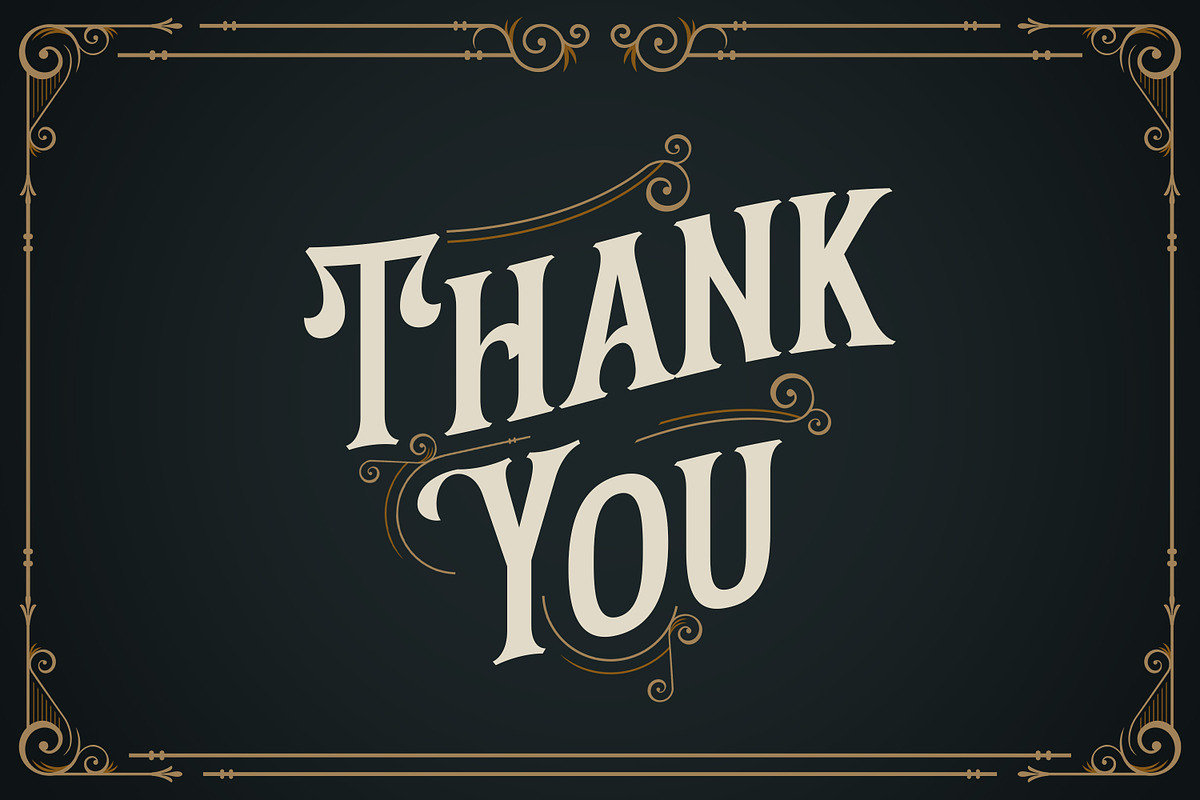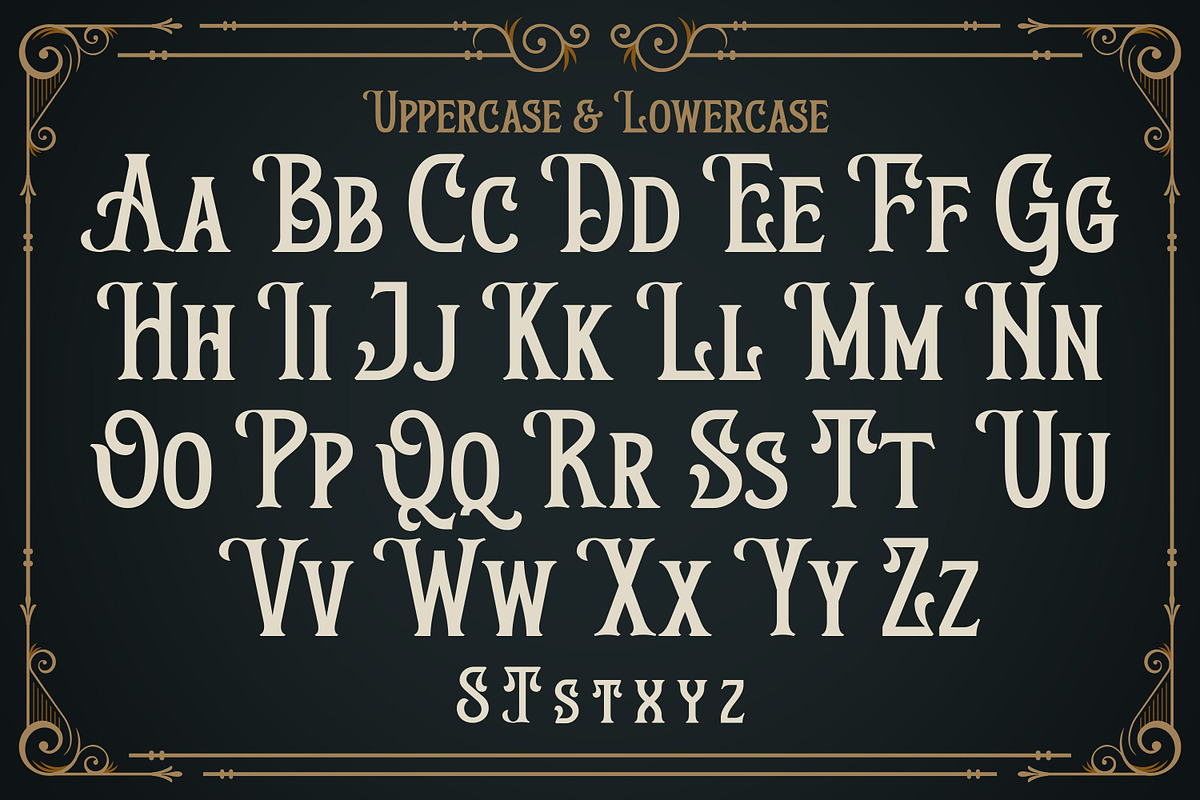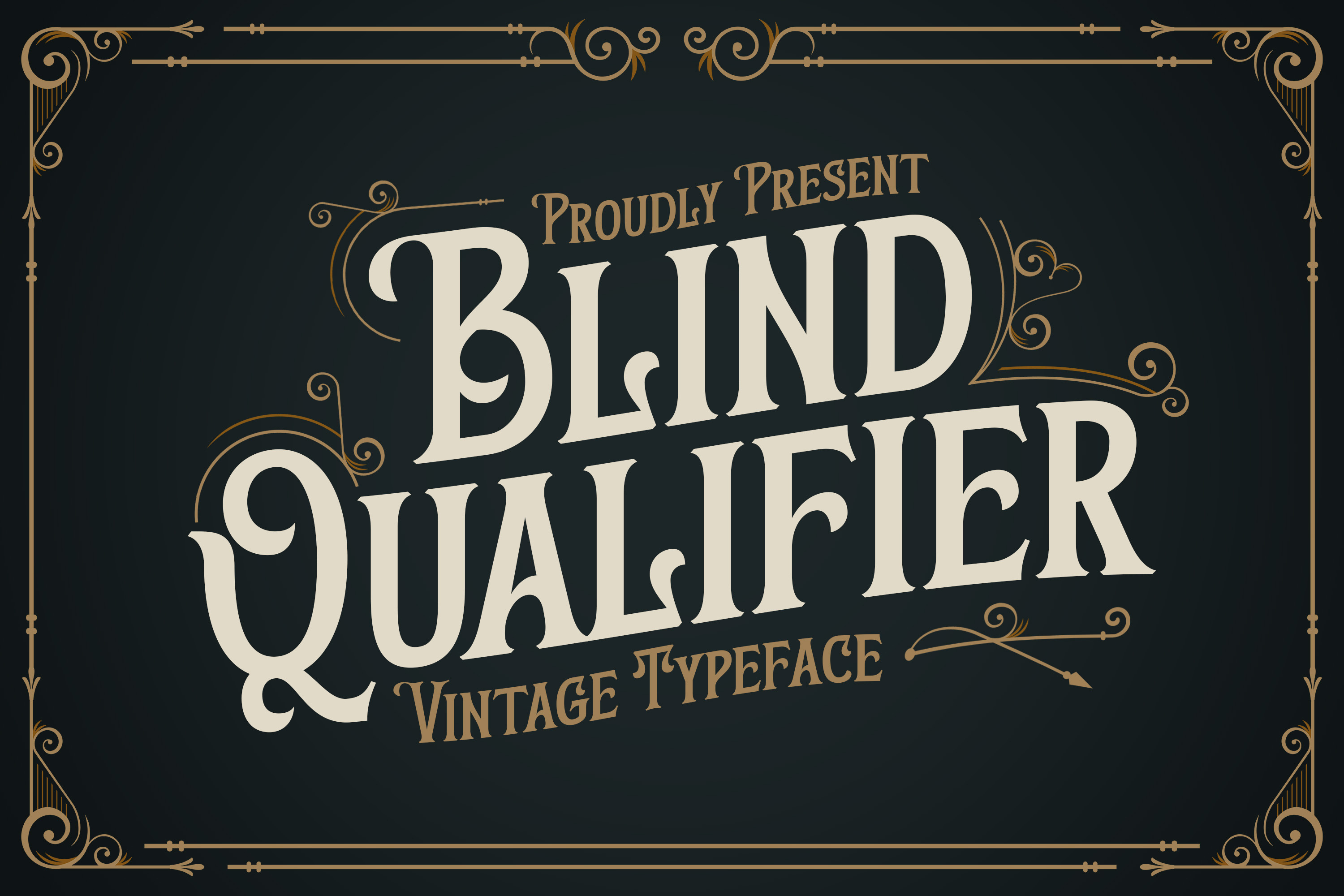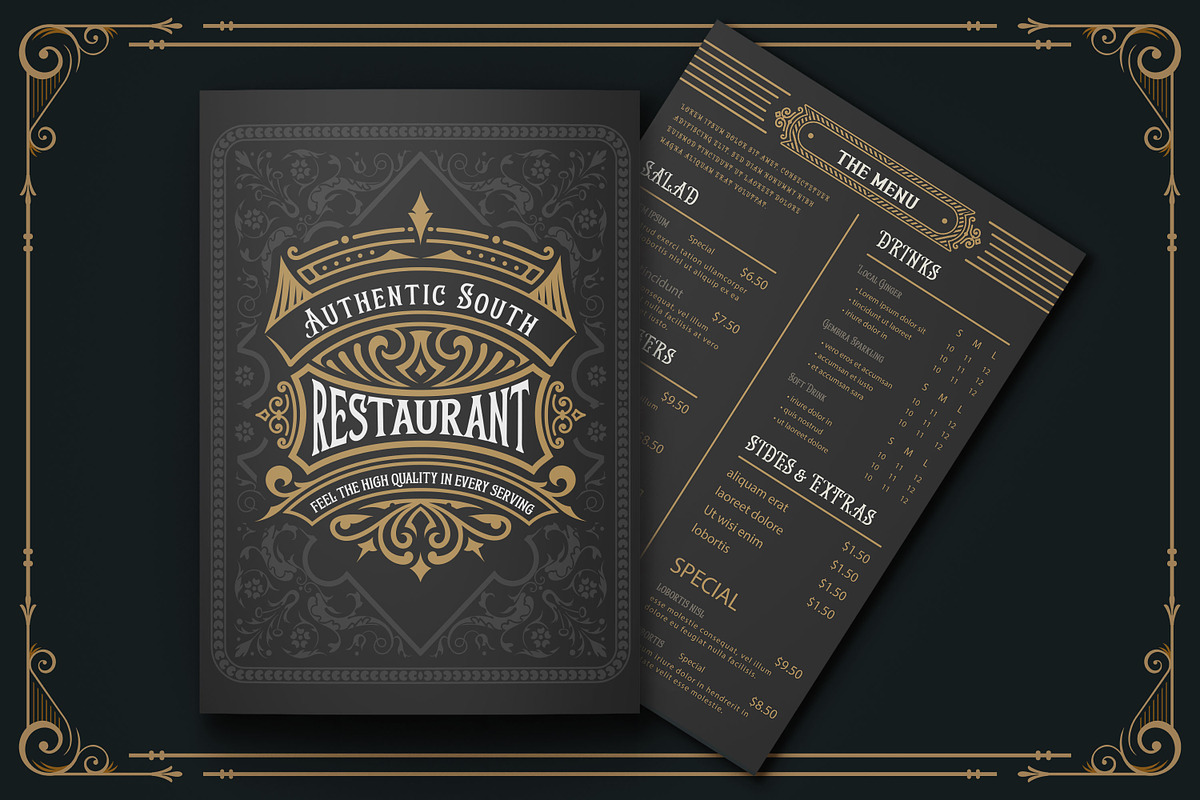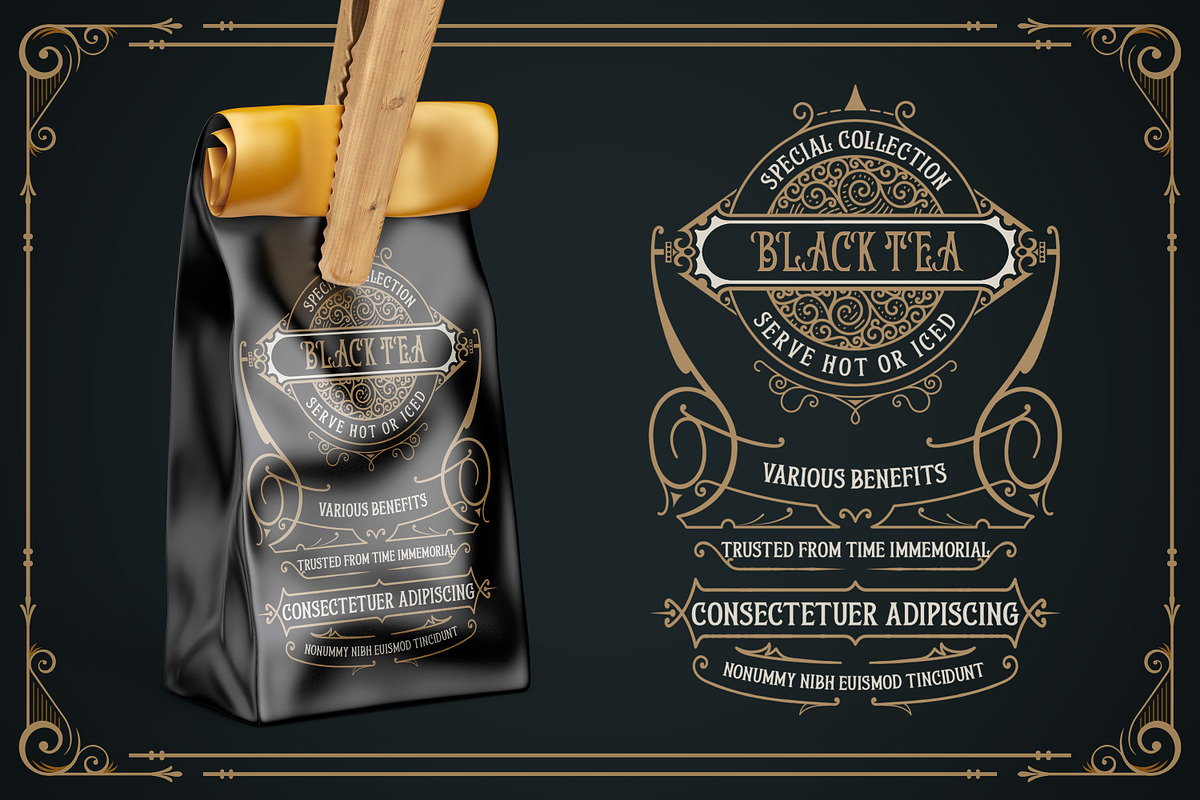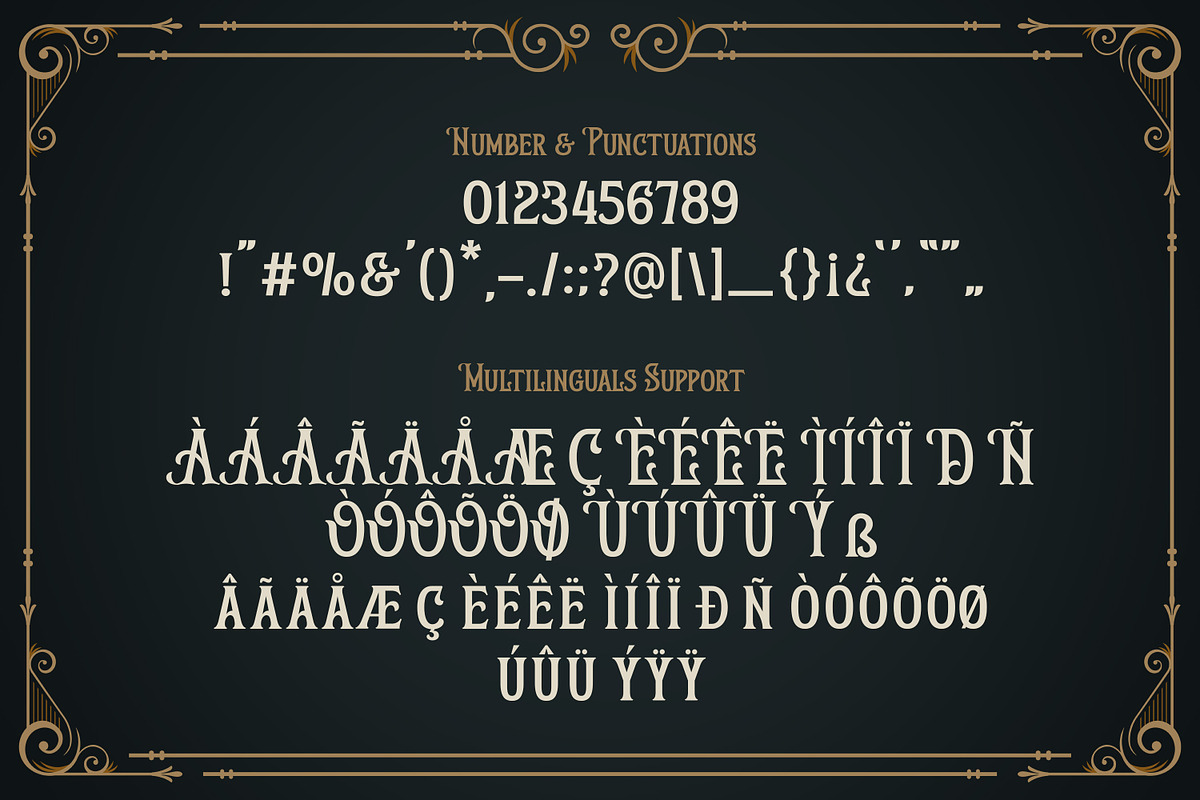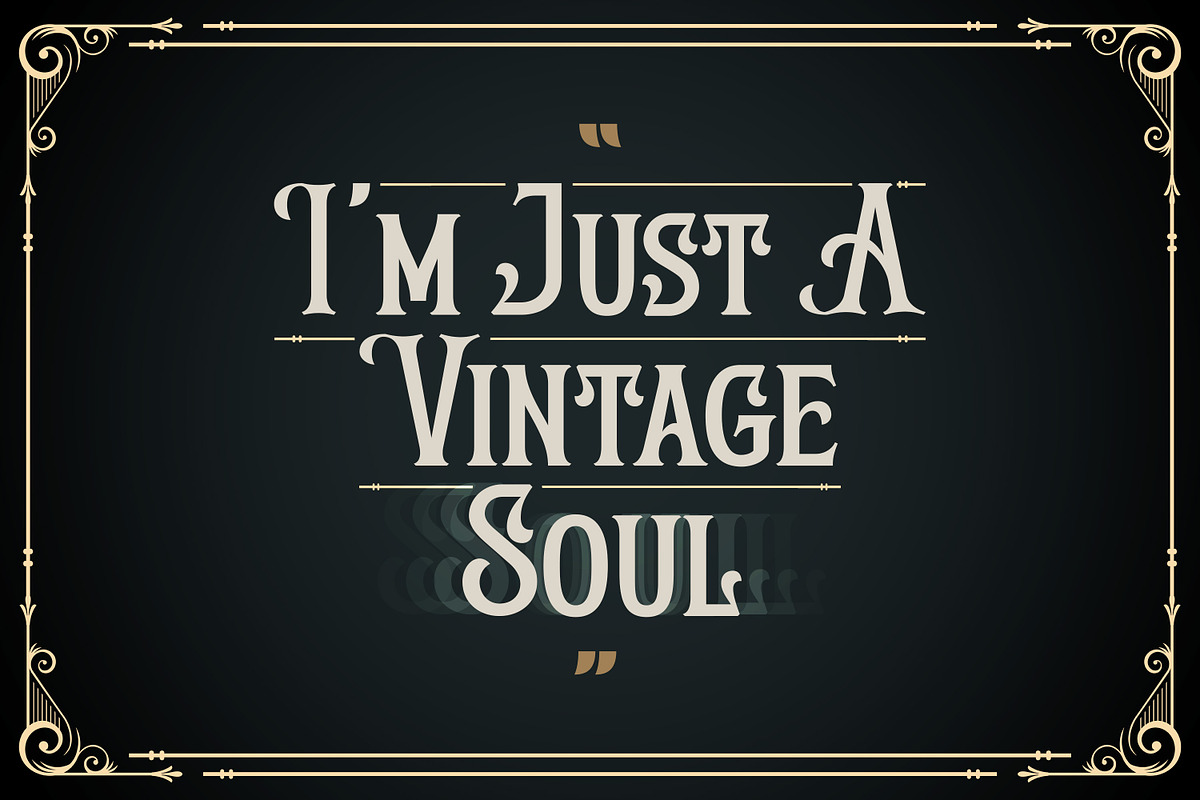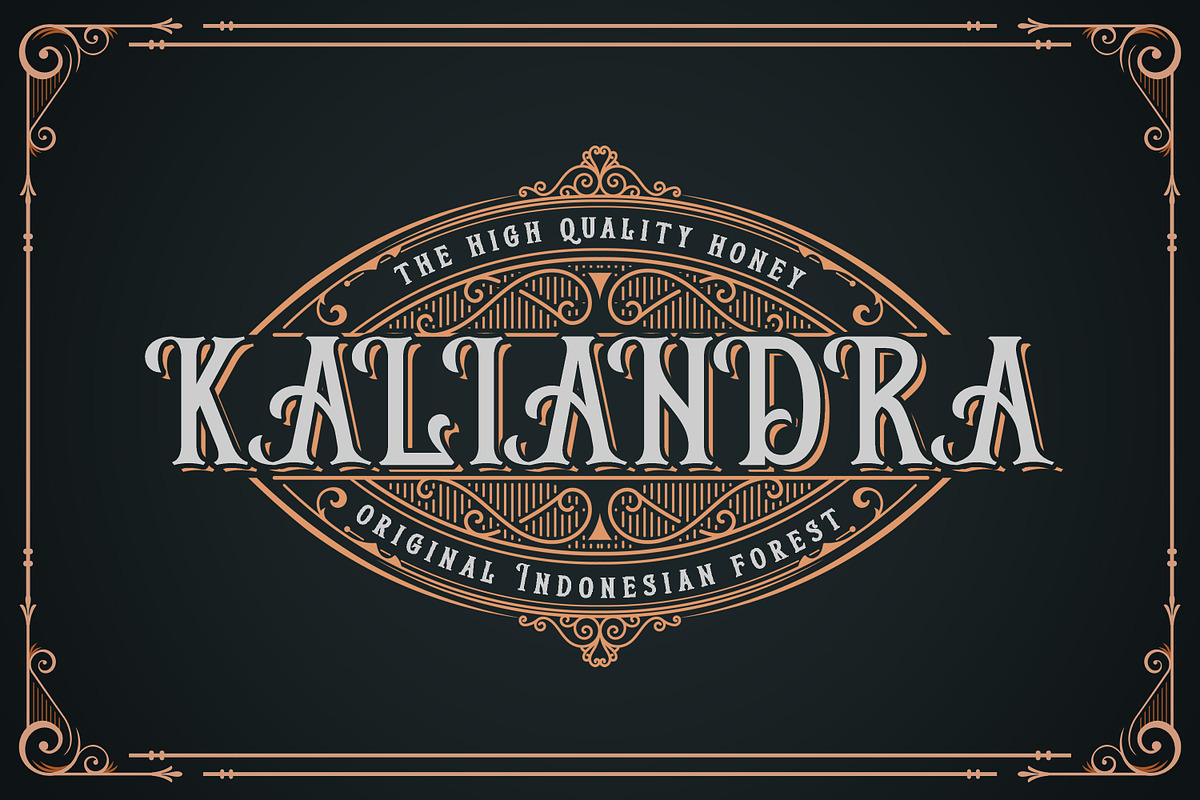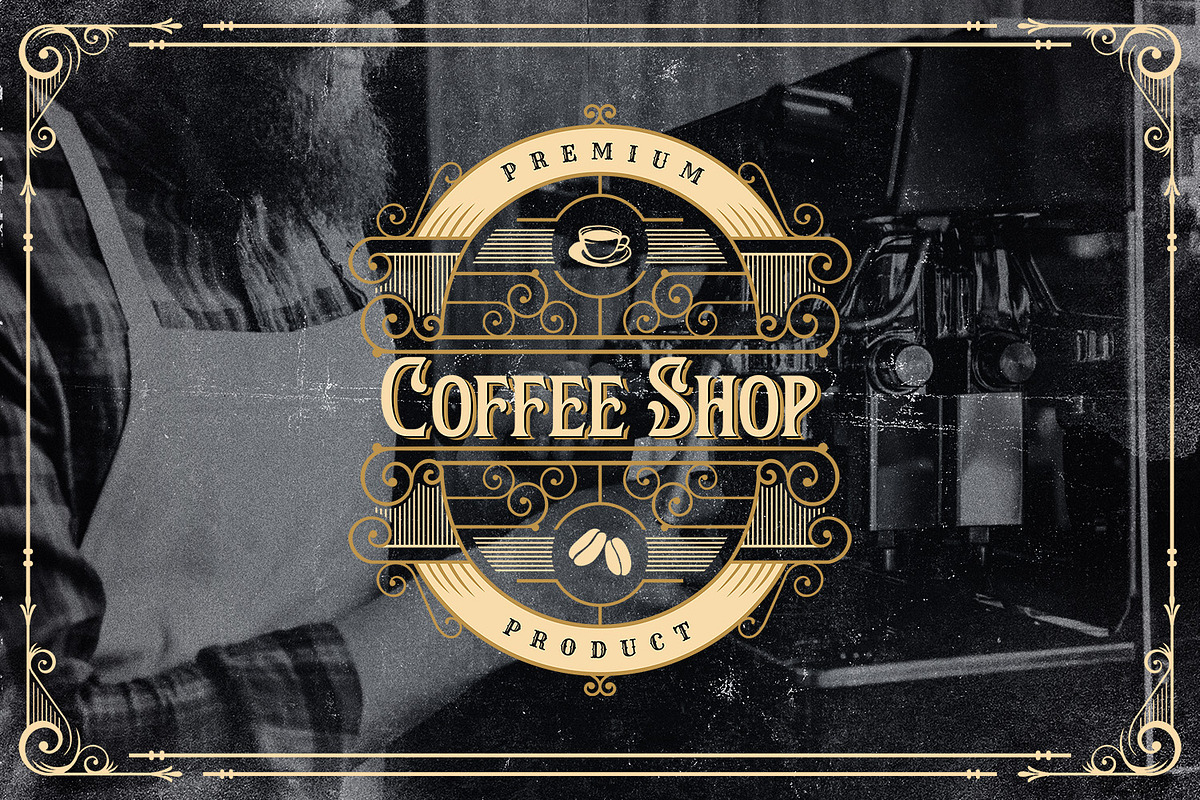
Blind Qualifier - Vintage Typeface
Introducing our latest display typeface called Blind Qualifier A unique Fonts with vintage taste can make your logotype become more interesting. Best Vintage font with special alternative glyphs, and multilingual support. inspired by the decorative arts and architecture movement
Blind Qualifier fonts is perfect for your project and allows you to create designs, headlines, posters, logos, badges, t-shirts and many more that are beautiful. It is also best used for posts, logos, posters, certificates, labels and more.
- Alternate glyphs
- Multilingual Accent